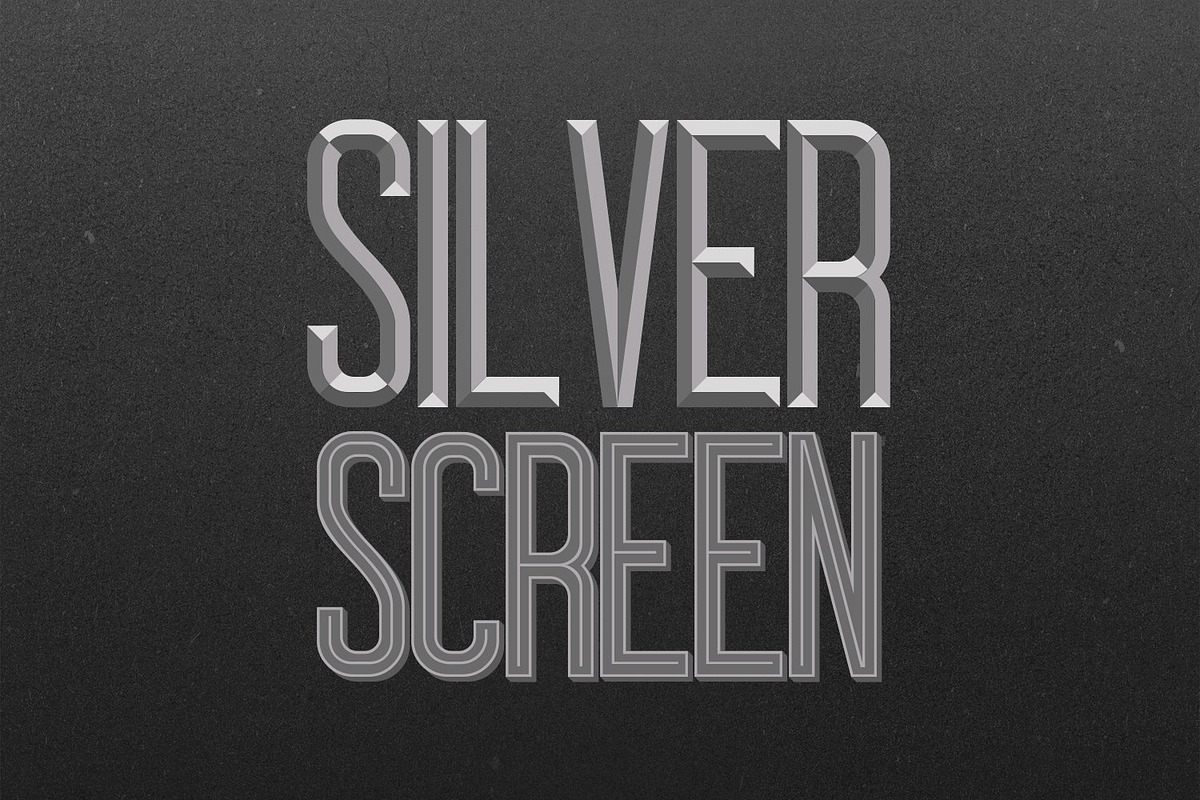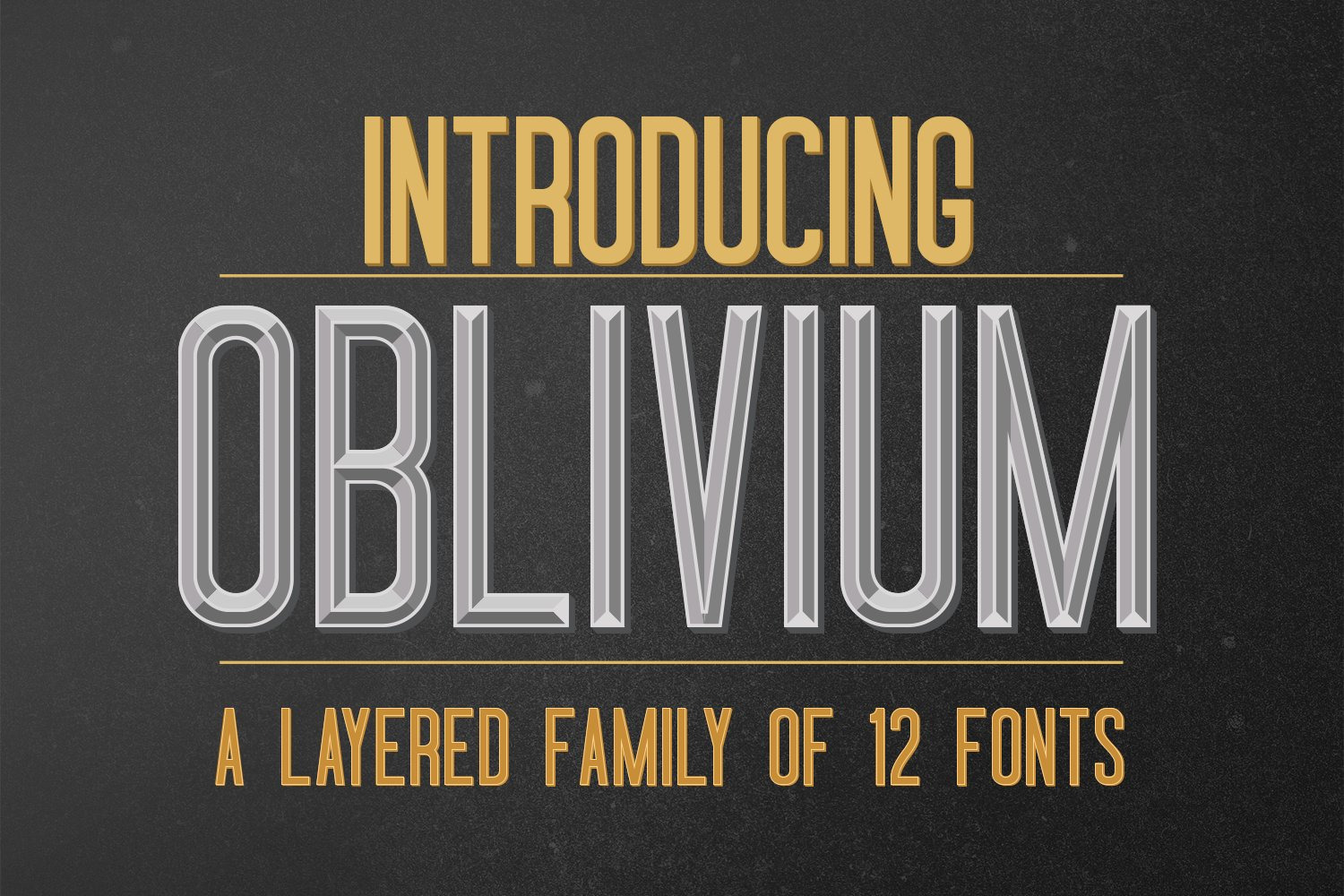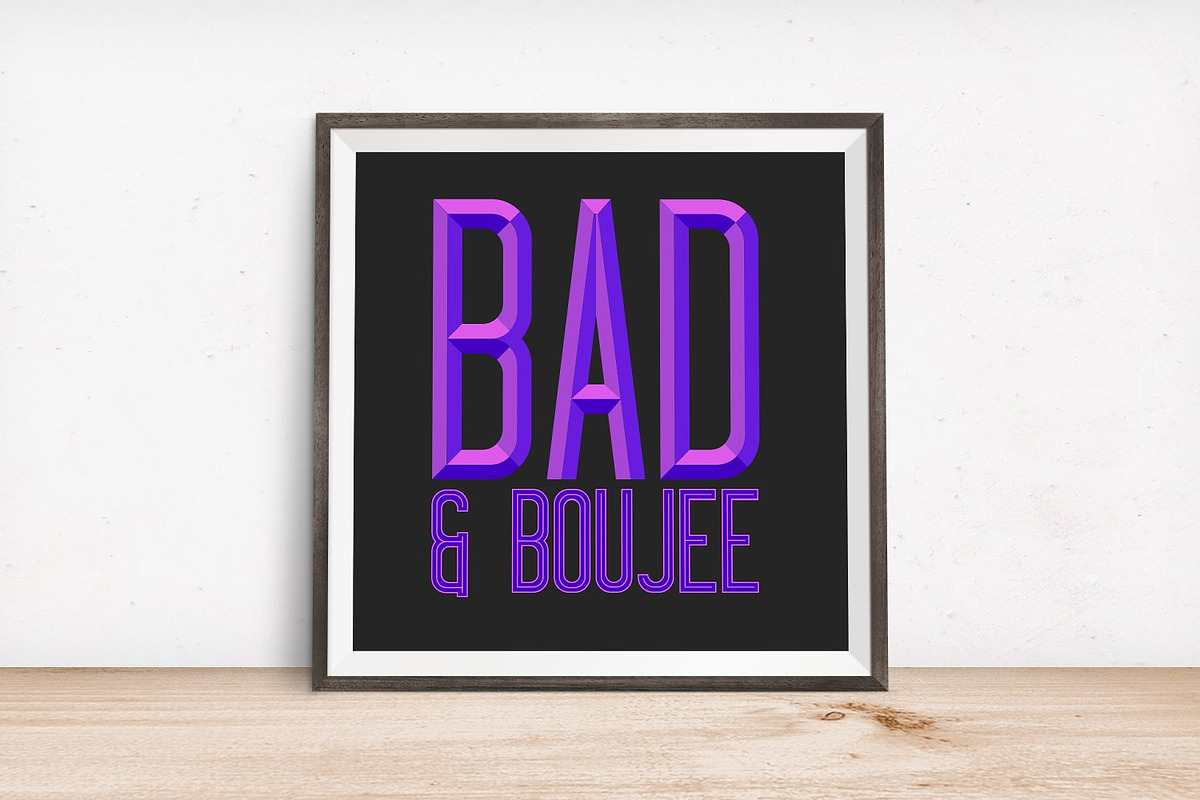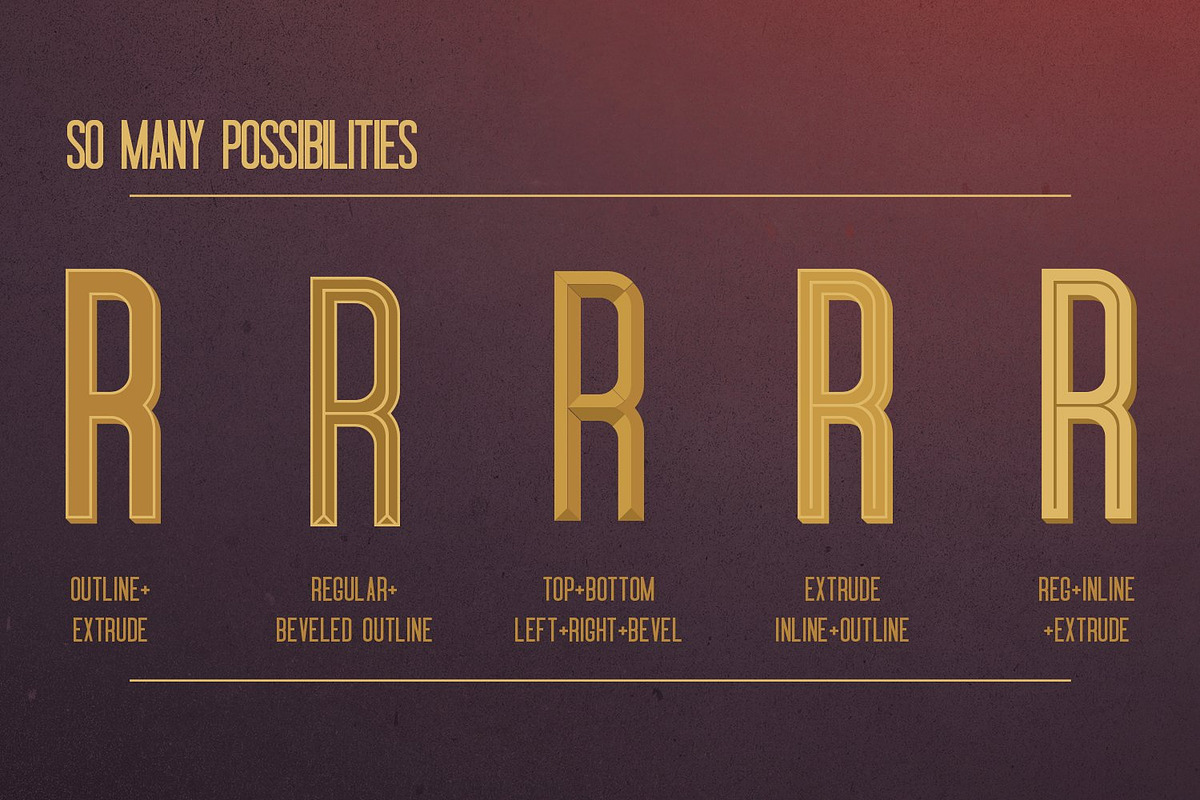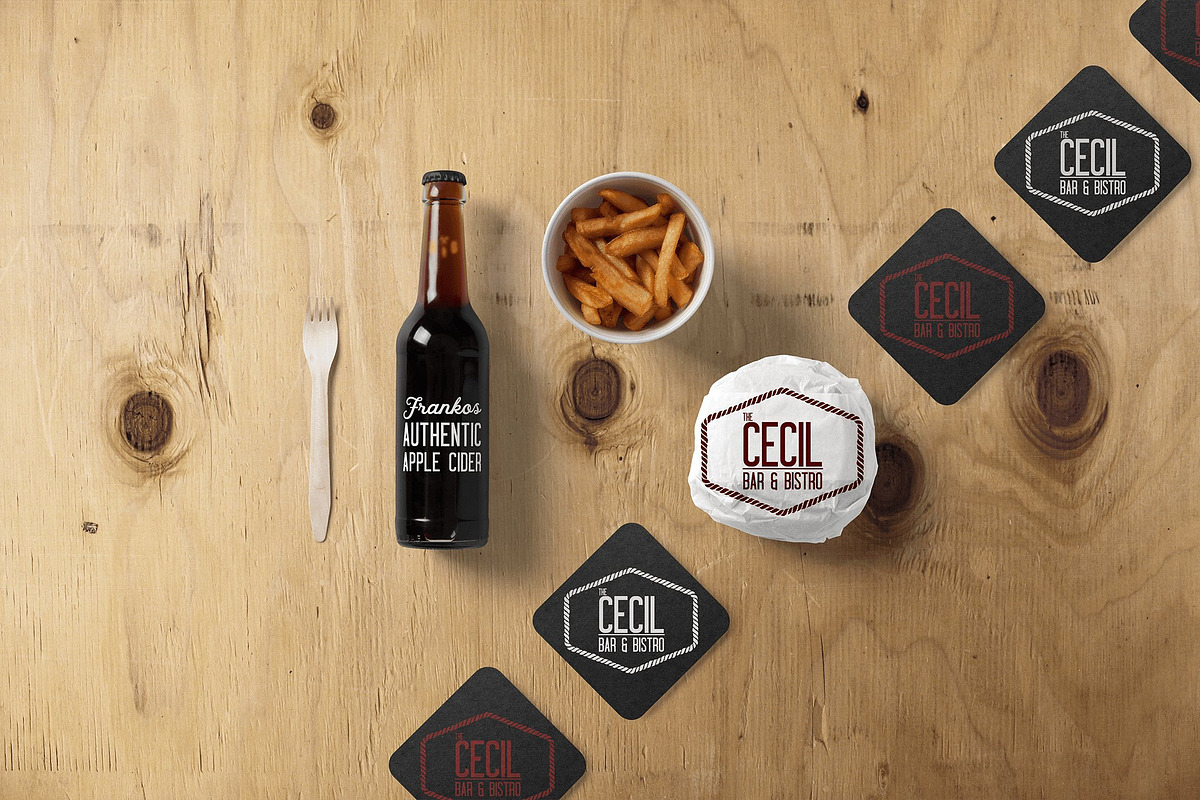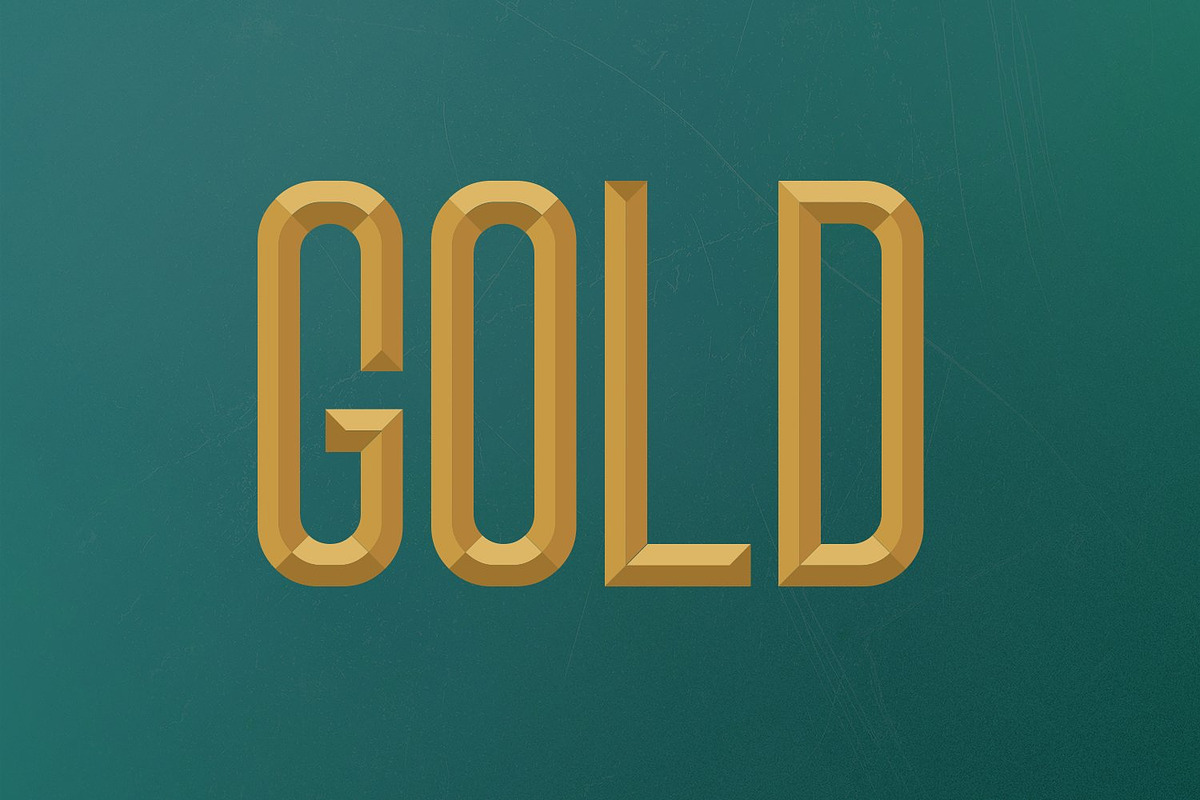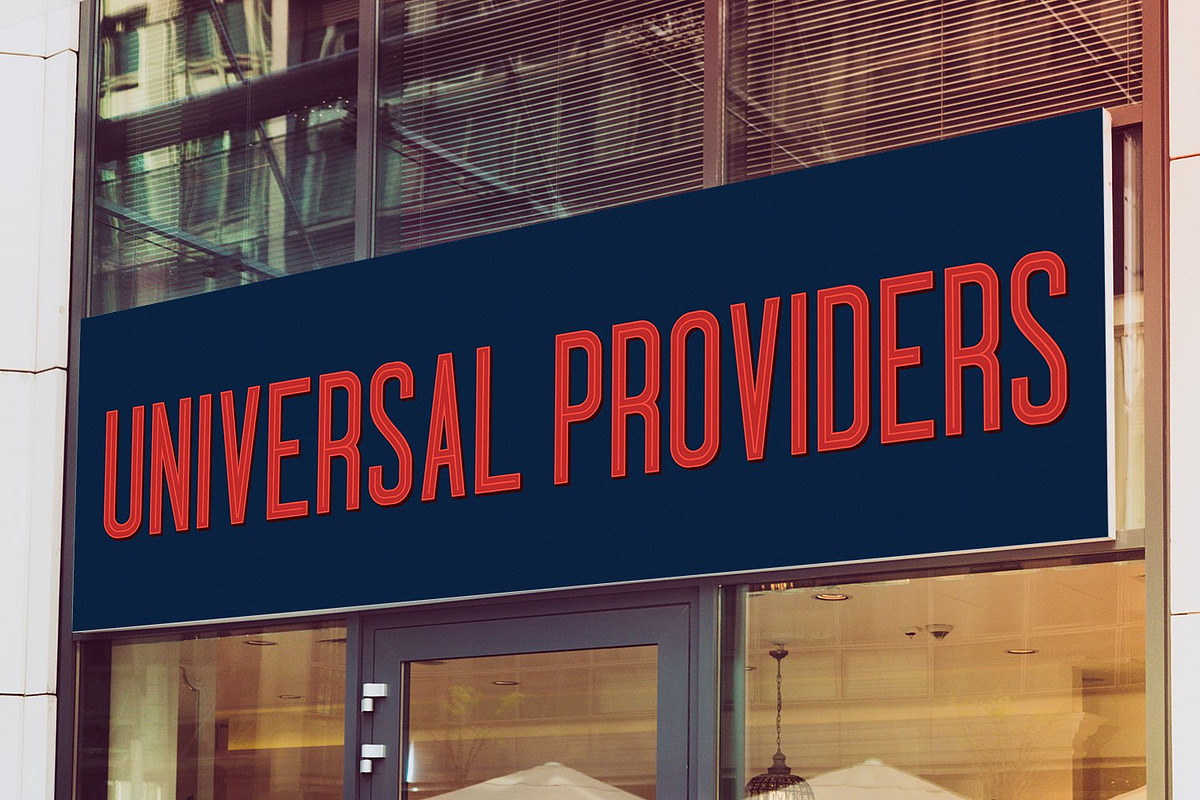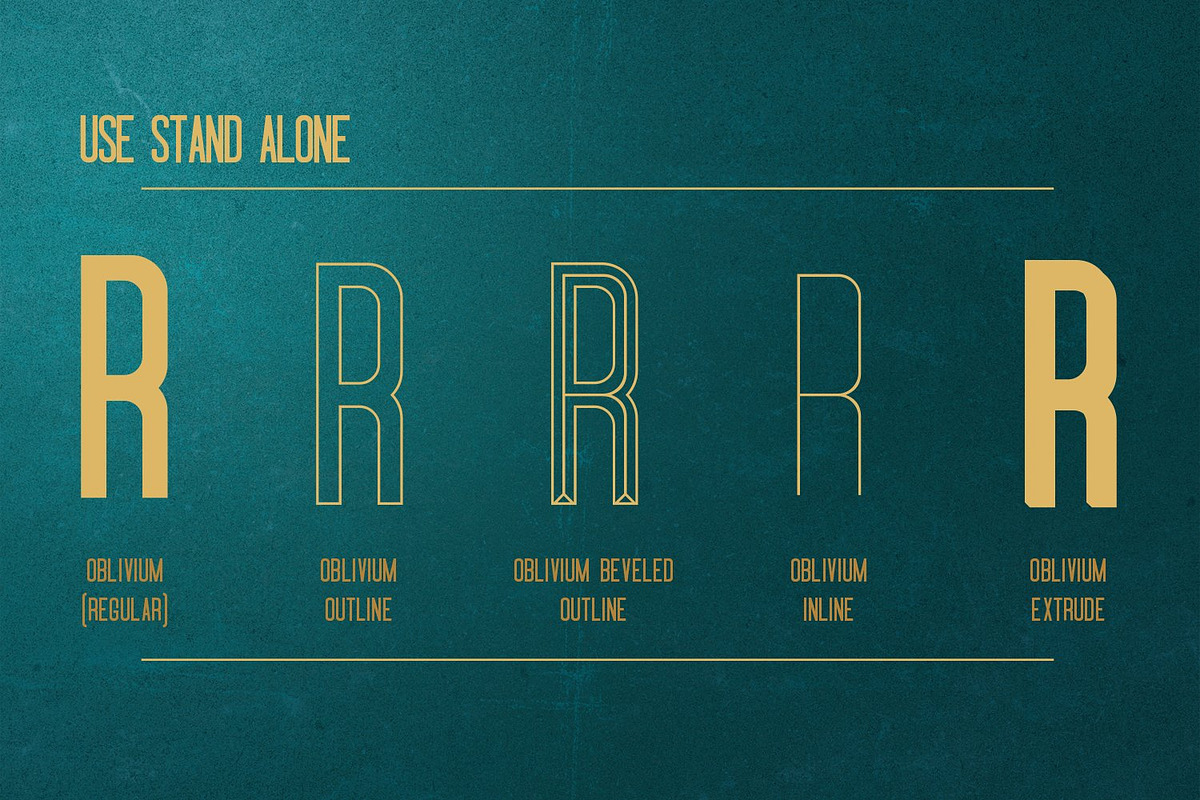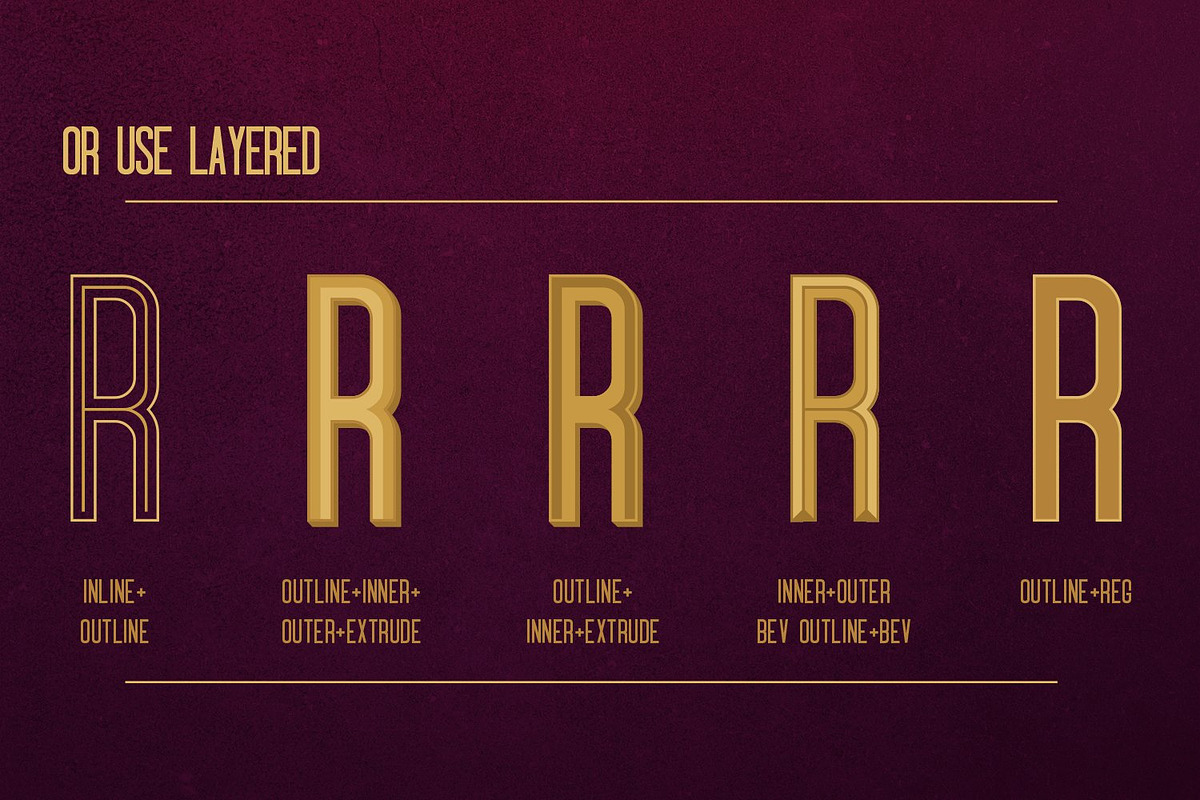
Oblivium layered font
Oblivium is a tall, condensed modern font family. Designed to make an impact in headlines or titles, it's easy to read but you can still it dress up.
In the family there are 12 fonts:
- Oblivium (regular)
- Oblivium Beveled Outline
- Oblivium Extrude
- Oblivium Inline
- Oblivium Outline
- Oblivium Bevel
- Oblivium Outer
- Oblivium Inner
- Oblivium Top
- Oblivium Bottom
- Oblivium Left
- Oblivium Right
These fonts are designed optimally to work together as a layered system, however, you can use Oblivium regular, Outline, Inline, Bevel Outline or Extrude as stand-alone fonts. The possibilities are endless, or pretty close to it, anyhow. Enjoy!.